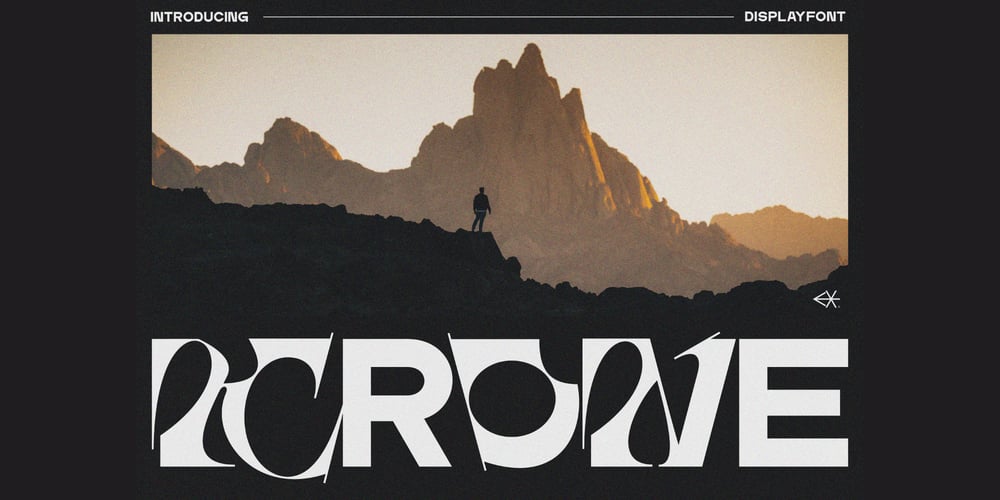
Krone Display Font Family was designed by Dzulka Elfira and published by Tebaltipis Studio. Krone Display contains 1 styles and family package options. Krone Mixed Font is an experimental combination font. include 3 fonts that have a very different style and appearance, but make this font look unique.This font equipped with several features such as alternative characters, ligatures, and multi-language support that makes it easier for you to design. This font is perfect for your design needs such as poster design, logo design, branding, social media design, book, magazine, etc.